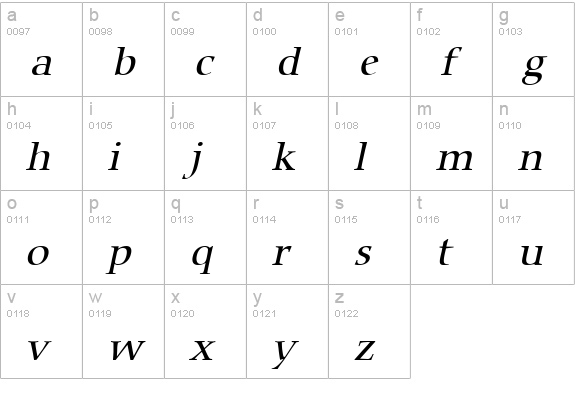
Carmine Italic Font Details
Carmine Italic is a distinctive, italic variant in the Carmine typeface family \xE2\x80\x94 well suited to design and typography projects.
Carmine Italic is a stunning and elegant font that exudes sophistication and style. With its sleek lines and graceful curves, Carmine Italic is perfect for adding a touch of class to any design project. Whether you're creating a wedding invitation, a logo, or a branding campaign, Carmine Italic will make your text stand out beautifully. This versatile font is ideal for both print and digital designs, making it a must-have in any designer's toolkit. The italic style adds a touch of flair and personality to your text, making it perfect for conveying a sense of elegance and refinement. Best of all, Carmine Italic is free to download at FontsMarket.com. This means you can easily add this gorgeous font to your collection without breaking the bank. Don't miss out on the opportunity to enhance your designs with the timeless beauty of Carmine Italic. Download it today and take your projects to the next level!